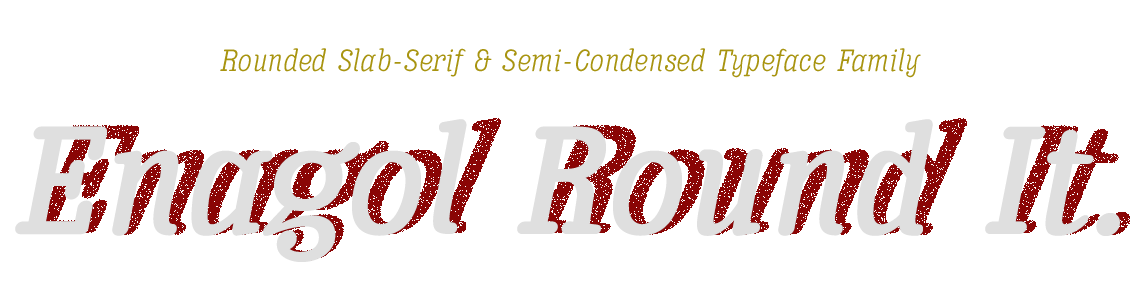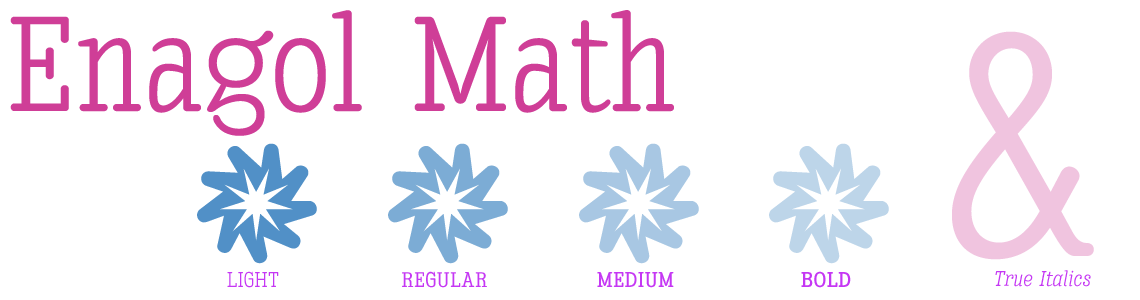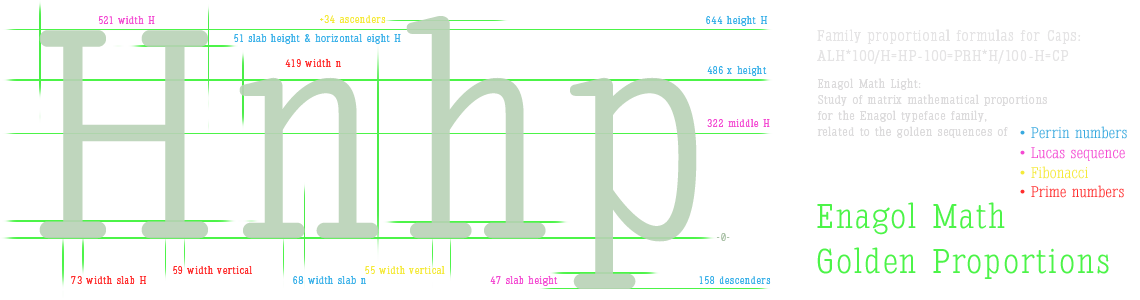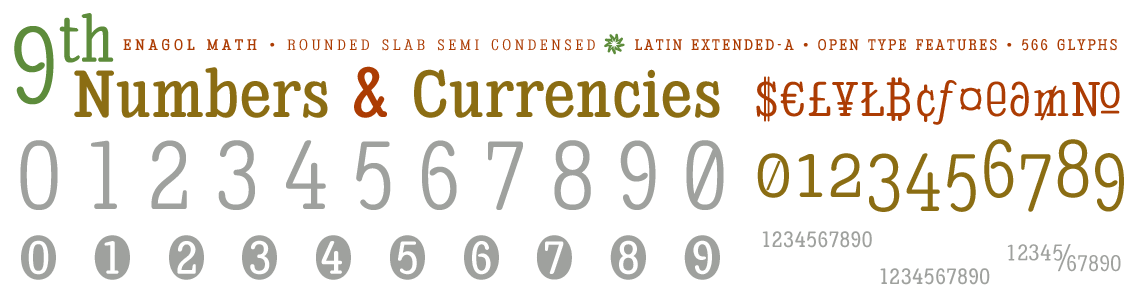
Enagol Math Rounded
Enagol Math, familia tipográfica con Slab Serif y proporción Semi Condensada
Enagol Math -Numbers & Currencies-
Enagol Math -Golden Proportions-
Enagol Math. What is a vector? The beginning and end of digital typography.
Enagol Math -10 Styles-